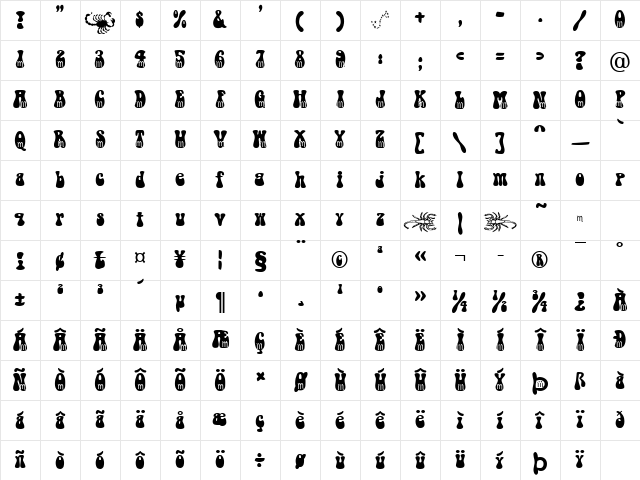
Complete Scorpio Becker Normal glyph index. Displaying only characters natively supported by Scorpio Becker Normal font.
Scorpio Becker is a composed and adaptable typeface that performs quietly and consistently across a wide range of design contexts.